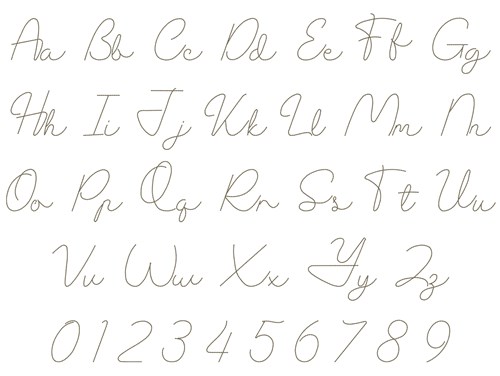
Satin Stripes is happy to present Soft Hand Script Embrilliance Embroidery Font - Flowing Cursive Lettering - BX font machine embroidery font which has Soft hand script machine embroidery font showcases flowing, cursive-like letters ideal for quilt labels and custom gifts. Offered in Embrilliance, with BX font available for easy integration. included. If you would like to view more embroidery fonts and alphabets please search our embroidery fonts page.
Soft Hand Script Embrilliance Embroidery Font - Flowing Cursive Lettering - BX font